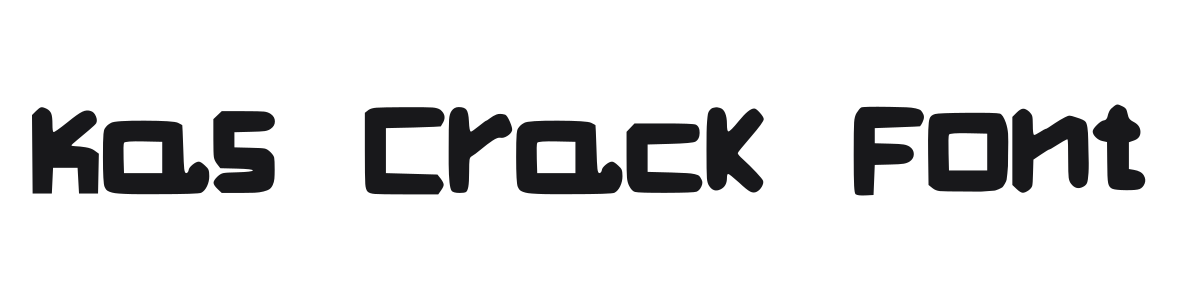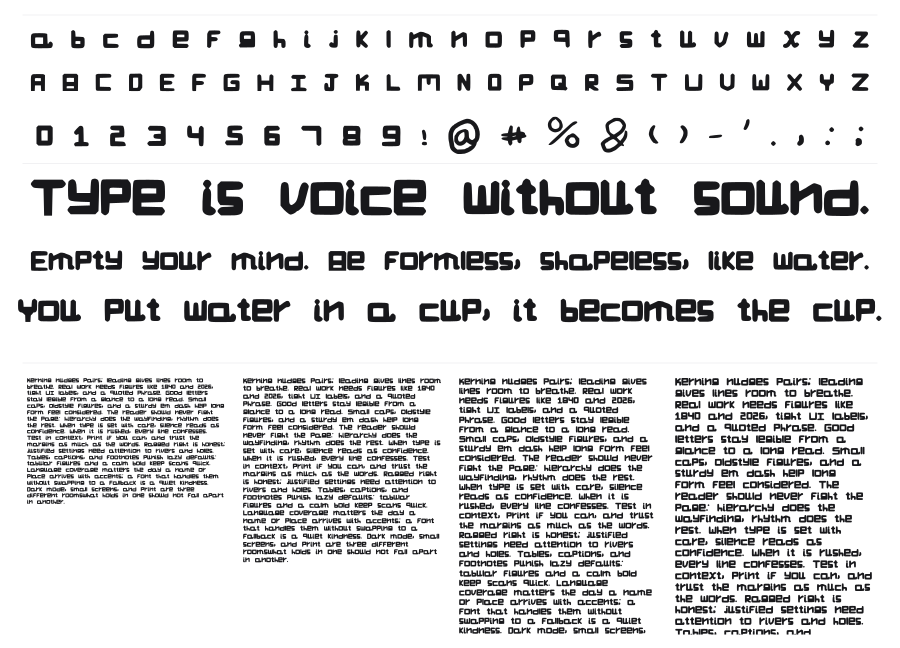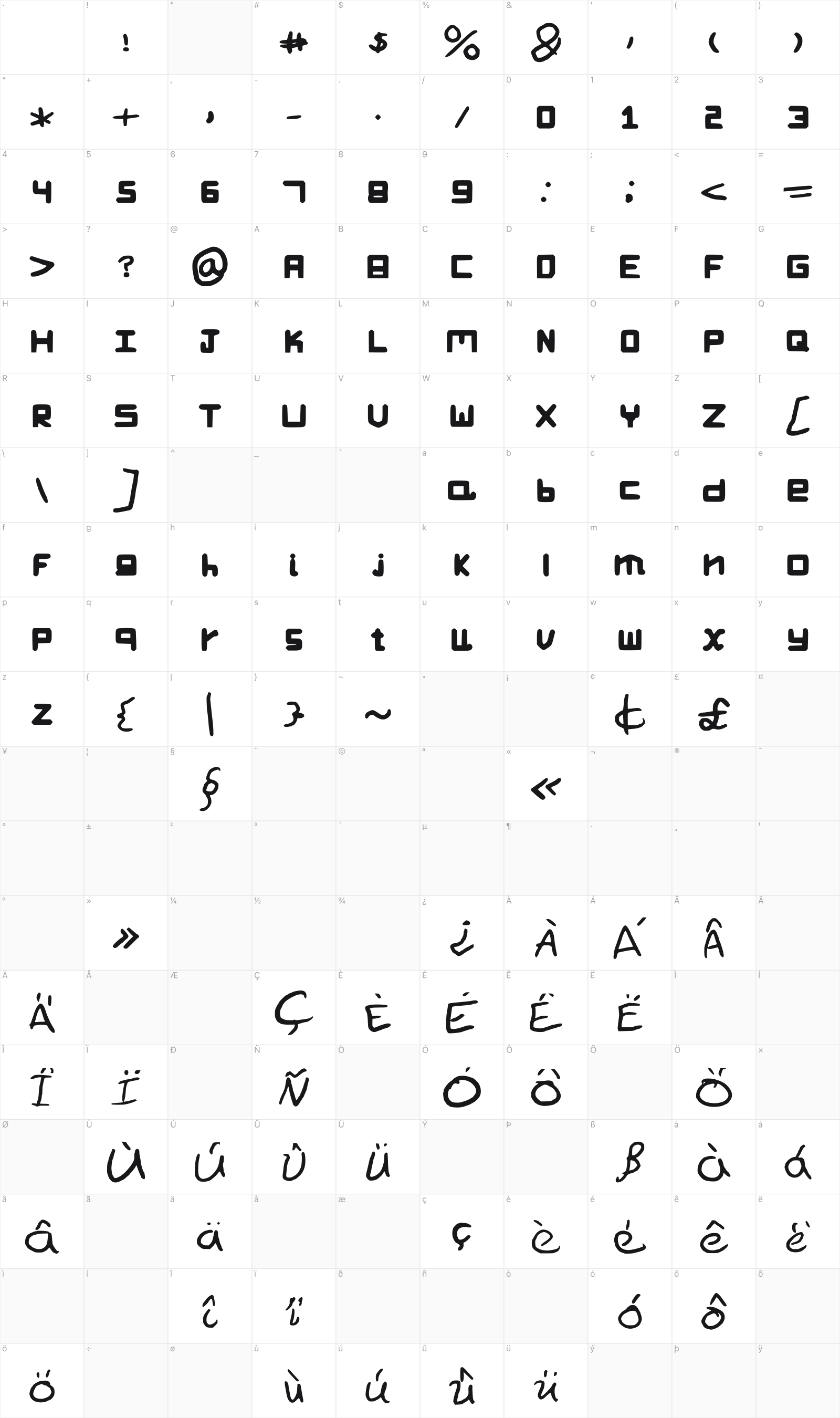
Kas Crack Font
Kas Crack Font is a heavy rounded display face built from thick, segmented characters with deep notches carved into joints and terminals. The cracked, modular construction gives it a retro-groovy energy reminiscent of 1970s display lettering, updated with a streetwear edge. Works at large sizes for posters, game titles, or youth-oriented branding.